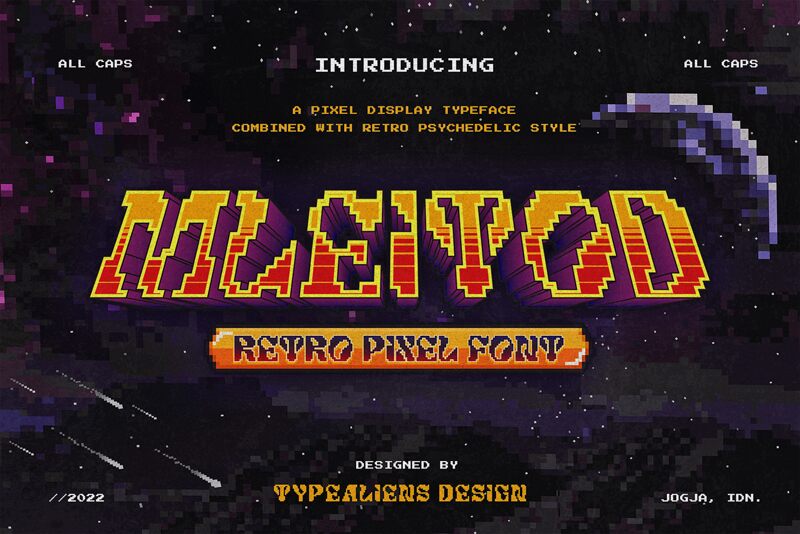
Mleitod font by ilhamtaro is a bold pixelated typeface with a classic 8-bit aesthetic. This bitmap font has a digital appearance that presents an old-school vibe and connects us to the video games of our childhood. Mleitod is the epitome of simplicity, offering readers an authentic visual experience where each pixel adds value.
The free pixel display font knocks on every artist’s door whether they work in graphic design or web design. It can be employed for all types of projects including stickers, comics, character designs, arcade game interfaces, applications, posters for music events or concerts, magazines and catalogs covers.